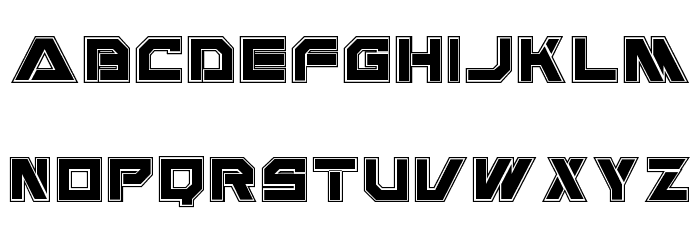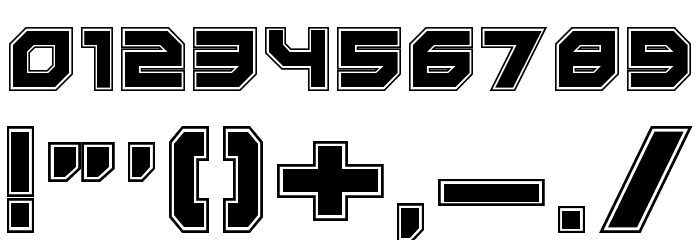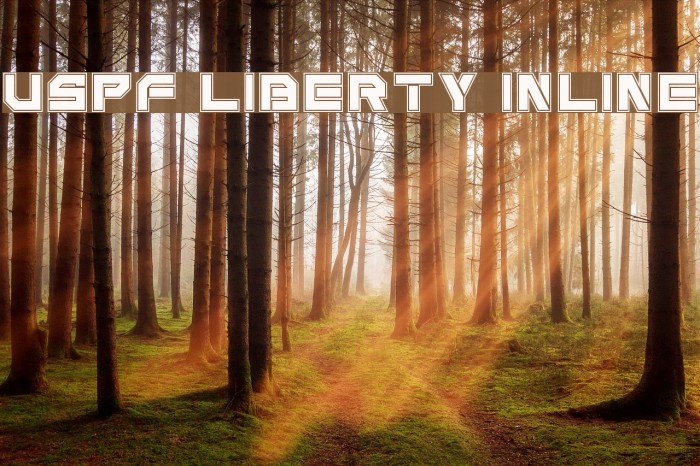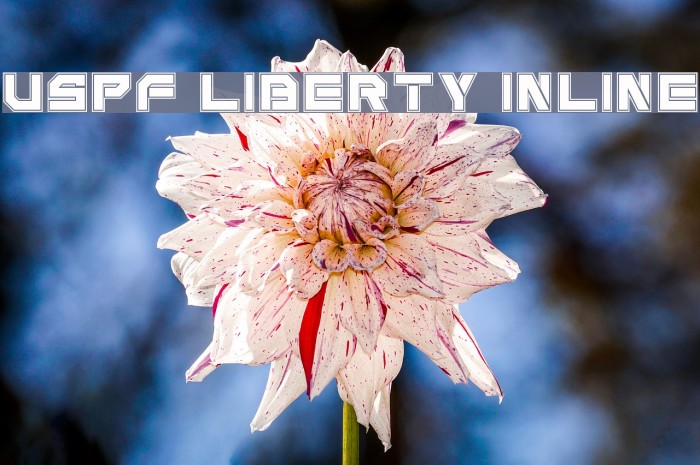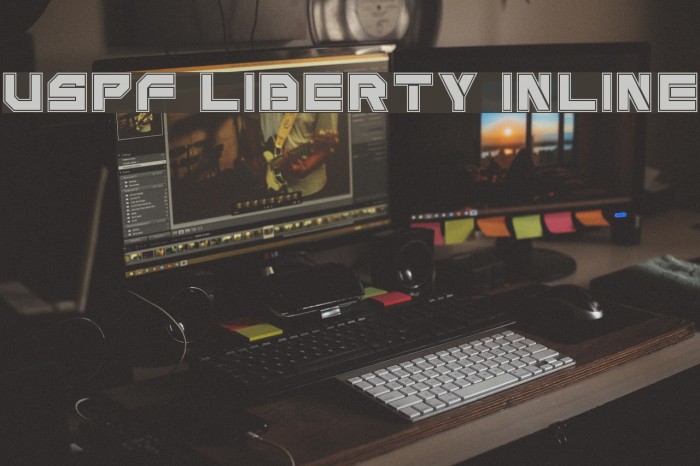
USPF Liberty Inline Font
This font features a bold, geometric design with an inline style that creates a striking visual effect. The characters are constructed with sharp angles and clean lines, giving it a futuristic and industrial appearance. The inline detail adds depth and dimension, making each letter stand out with a three-dimensional quality. The uppercase letters are uniform in height, while the numerals and special characters maintain the same bold, structured aesthetic. This font is highly legible and impactful, suitable for making strong visual statements.
A bold, geometric inline font with a futuristic and industrial style.
- Proposed Projects: Ideal for branding, posters, headlines, and any project requiring a modern, impactful look.